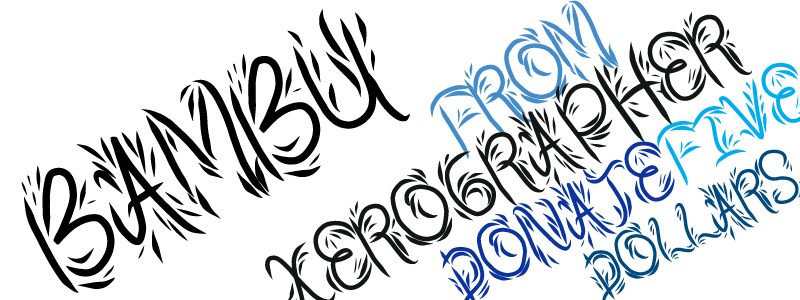
Bambu, designed by Max Infeld of Xerographer.com, is a free decorative display font shaped from curling, bamboo-like strokes. Its tall letters shift between broad curves and needle-thin cuts, with leafy notches breaking up the silhouettes. The uneven detailing gives each form a lively, carved appearance.
It can turn a title into a dense botanical emblem. That role fits tropical drink packaging, festival posters, and adventure game graphics, where the lettering can mingle with foliage and natural textures. For eco-minded shops or outdoor brands, the recurring leaf shapes make the name itself part of the product identity.